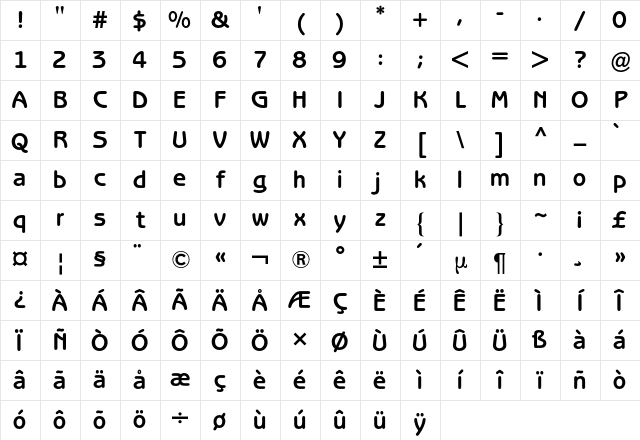
Benguiat Gothic BQ Regular
Benguiat Gothic BQ Family
Benguiat Gothic BQ Regular
Benguiat Gothic BQ Regular Font Preview
Benguiat Gothic BQ Regular Uppercase Preview
Benguiat Gothic BQ Regular Lowercase Preview
Benguiat Gothic BQ Regular Numeric Preview
Benguiat Gothic BQ Regular Character Map
Complete Benguiat Gothic BQ Regular glyph index. Displaying only characters natively supported by Benguiat Gothic BQ Regular font.
Benguiat Gothic BQ Regular Character Map
Design Context for Benguiat Gothic BQ
Benguiat Gothic BQ takes a clean, functional approach - its unadorned letterforms prioritise legibility and work reliably across screen and print environments.
Font Pairing: Works well alongside a characterful serif or display font that can carry the expressive load while Benguiat Gothic BQ handles the functional copy.